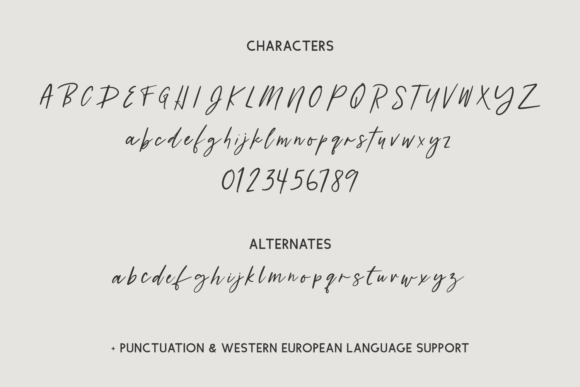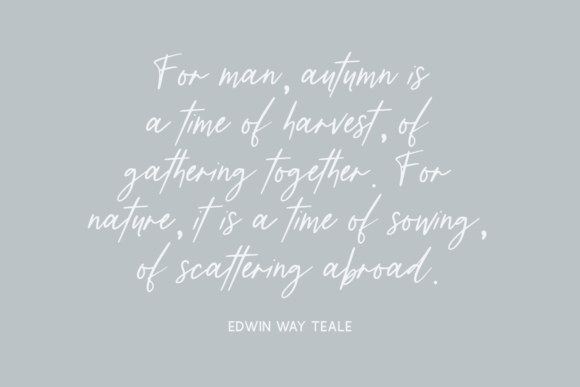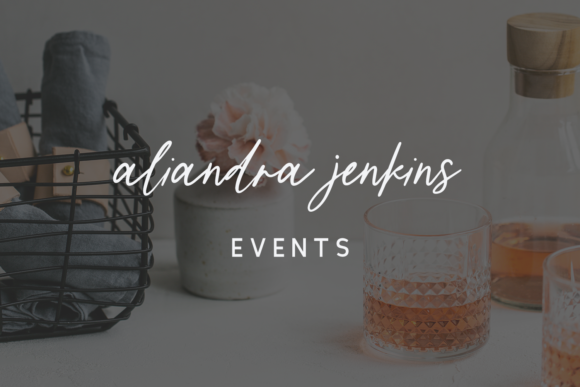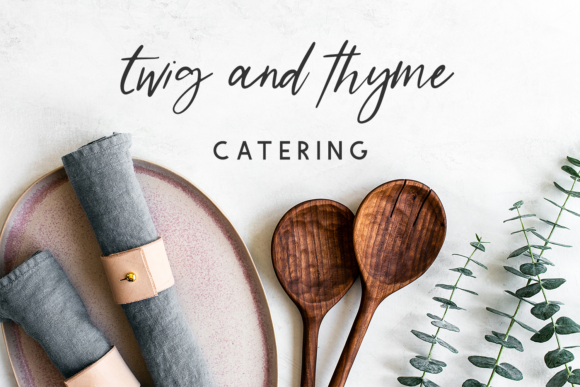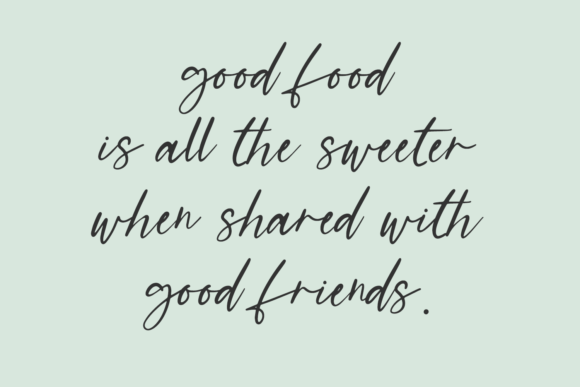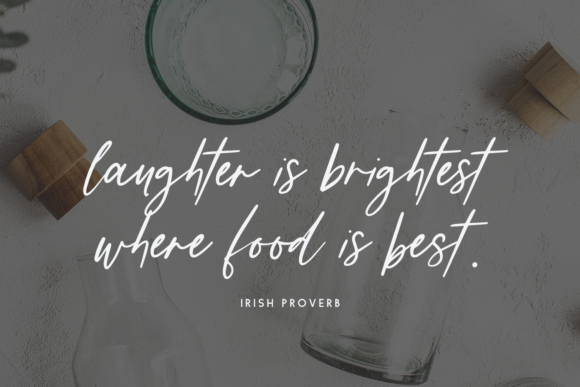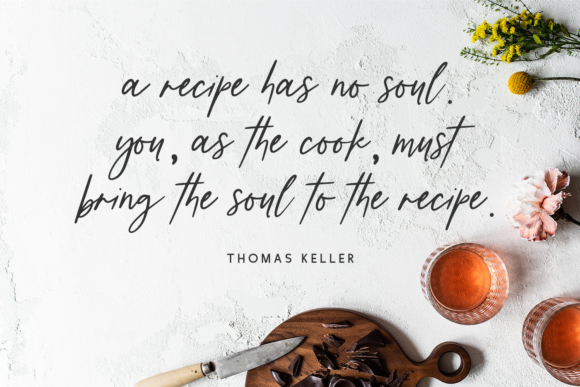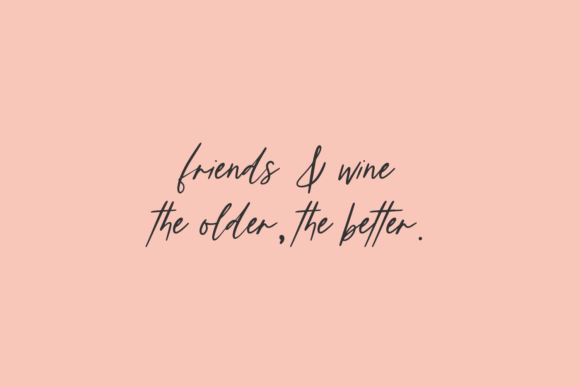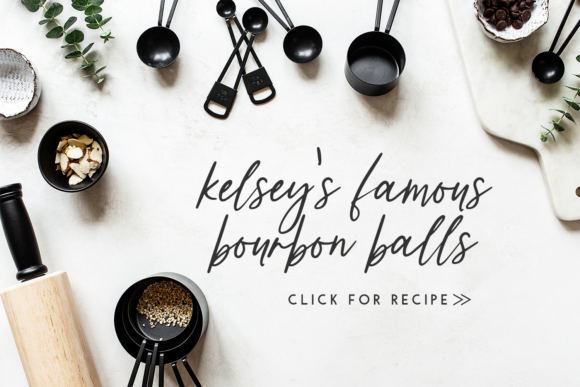
Distillery Script Font
About Distillery Script Font
Distillery Script is a signature font with alternates. Distillery Script is best for logos, branding, website design, website accents, think travel blogs, fashion blogs, & more. You can also successfully use this font for clean print design, like magazines + flyers, header elements that need handwritten touch, and quote graphics for social media.